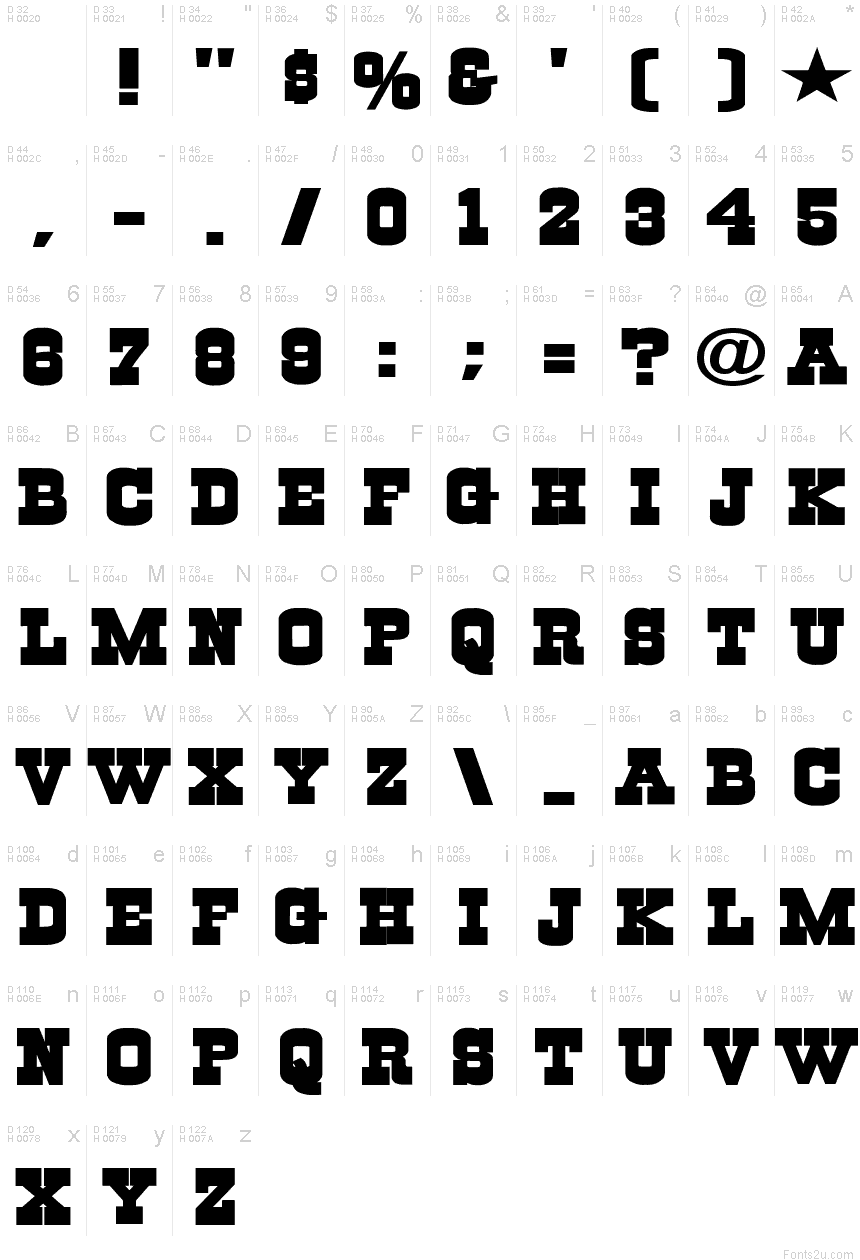
Cowboys
Cowboys font by Dennis Ludlow is a free Western display font. Its thick, squared letters and sharp carved notches have the punch of a saloon sign branded into old wood, with a sturdy, compact rhythm that keeps short words bold, loud, and easy to catch at a glance.
Using Cowboys, you can give real frontier flavor to rodeo posters, country festival flyers, BBQ packaging, whiskey labels, ranch branding, and game titles without sliding into cheap novelty. This free font shines at headline sizes; pair it with a plain serif or weathered sans so Cowboys can carry all the grit.